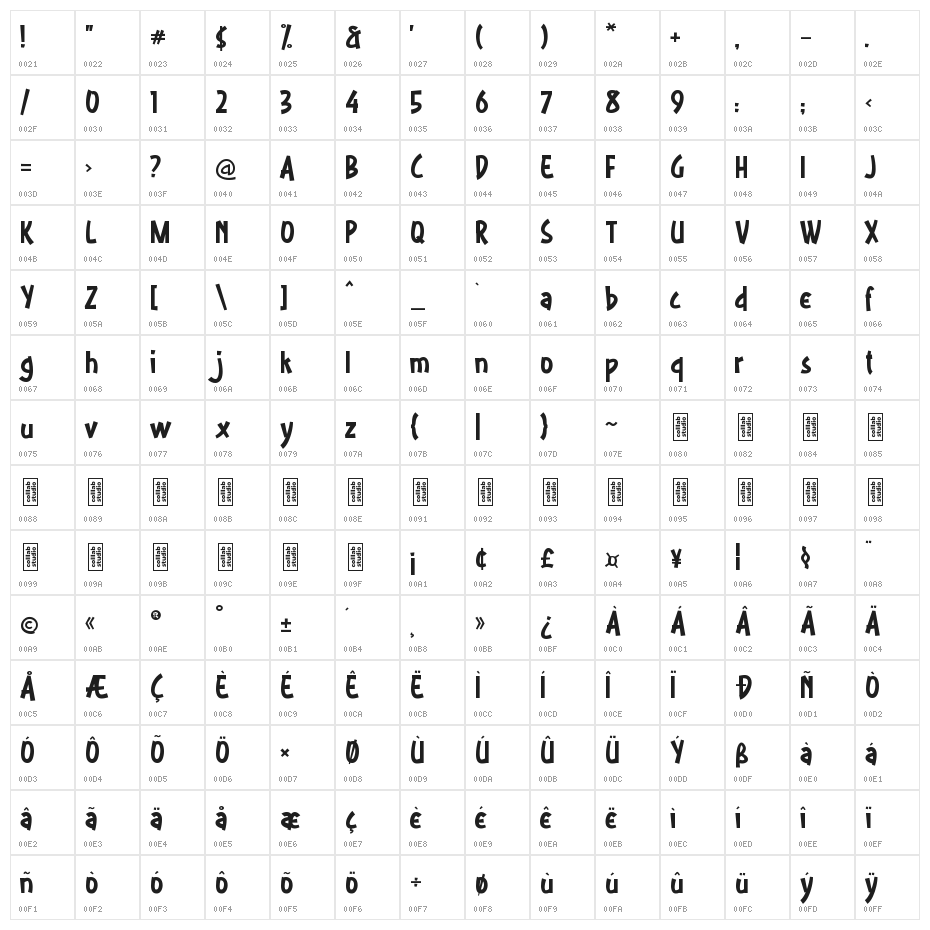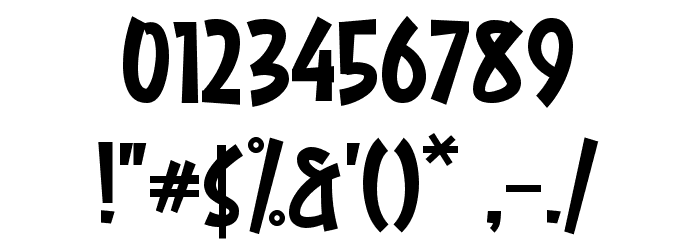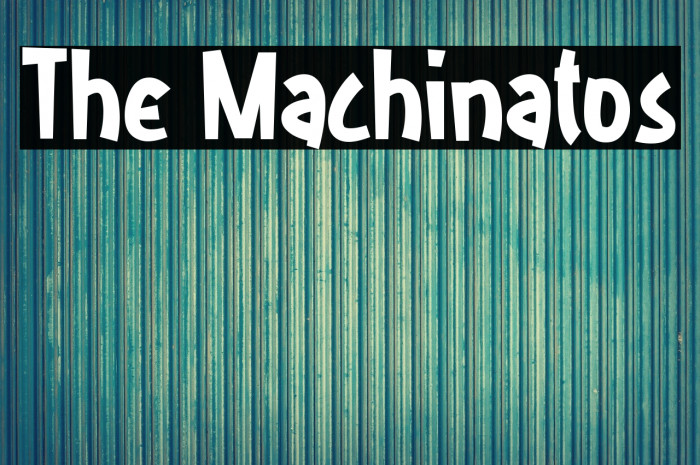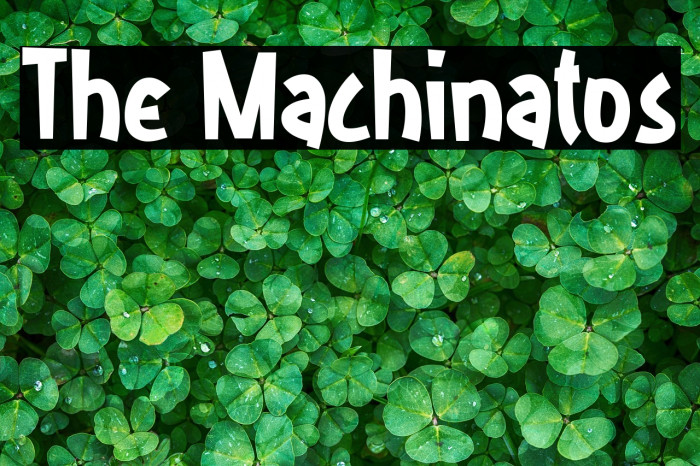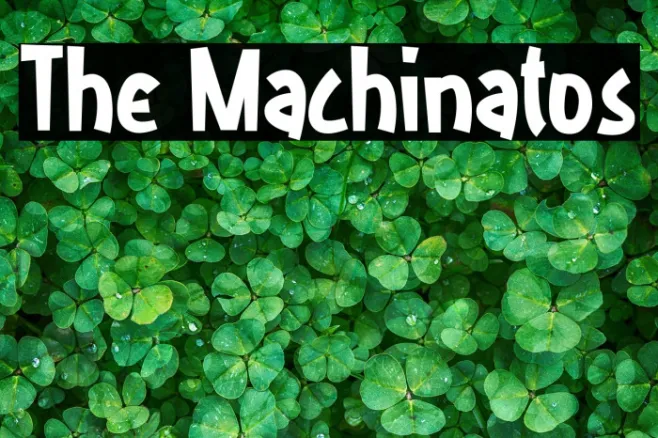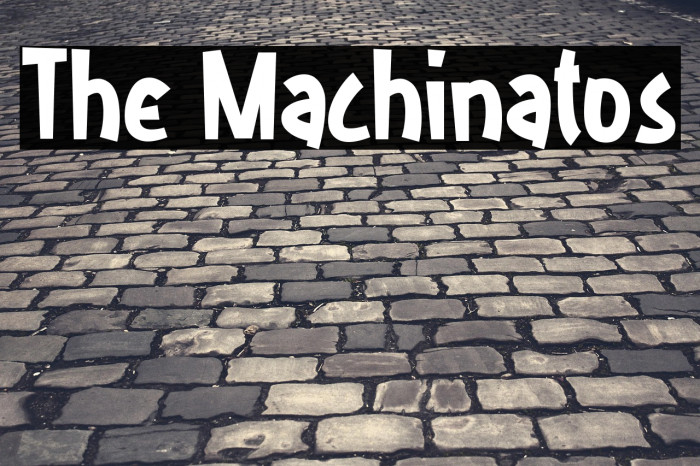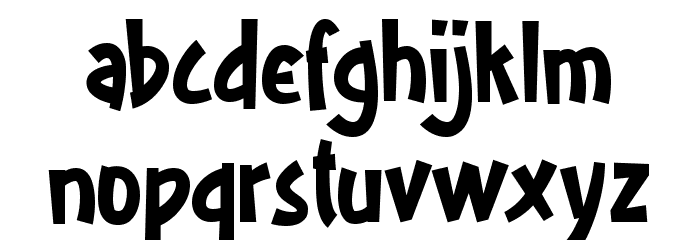
The Machinatos Font
The Machinatos Description
This font features a playful and bold design with a hand-drawn aesthetic. The characters have a whimsical, slightly irregular shape, giving them a lively and dynamic appearance. The uppercase and lowercase letters maintain a consistent style, with exaggerated curves and varying stroke widths that add to the font's charm. The numbers and special characters follow the same playful theme, making the font suitable for creative and informal projects. Its unique style captures attention and adds a fun element to any design.
| Overall Style | Playful, Hand-drawn |
| Proposed Projects | Ideal for children's books, comic strips, playful branding, and creative posters. |